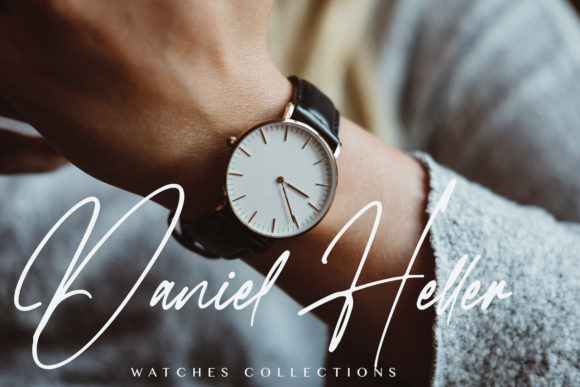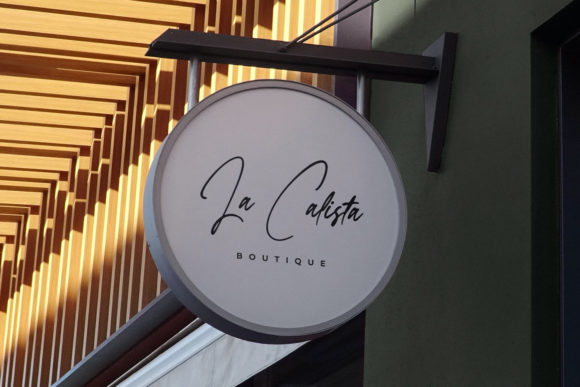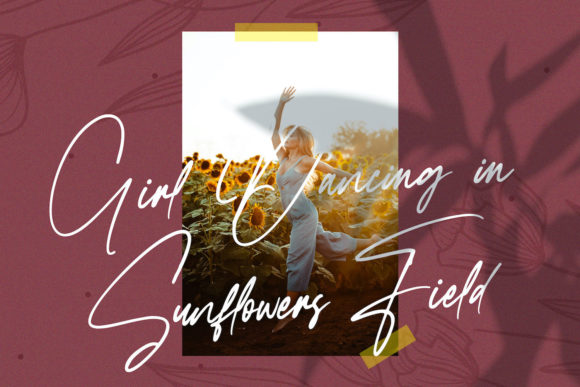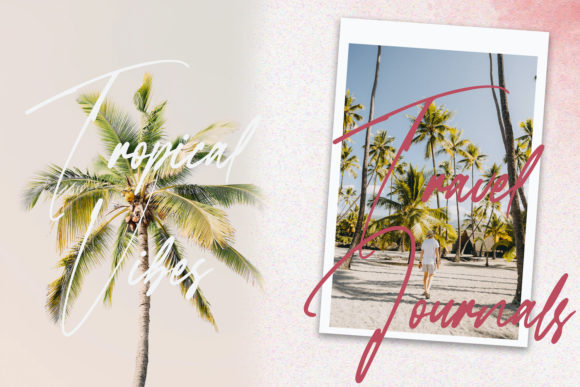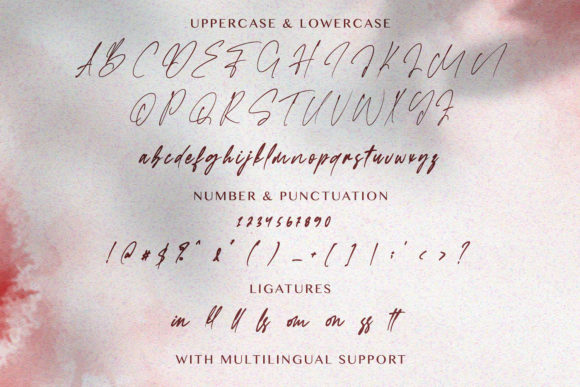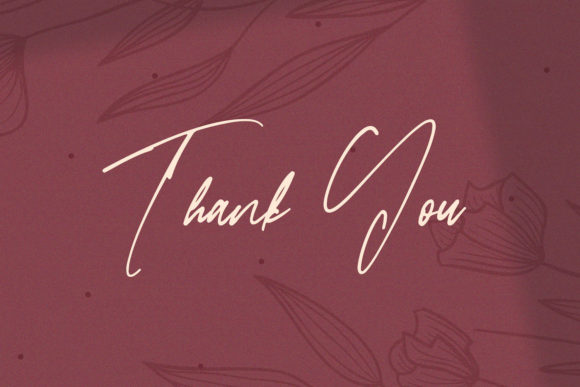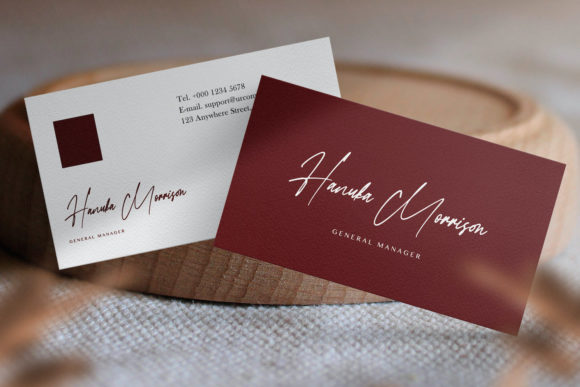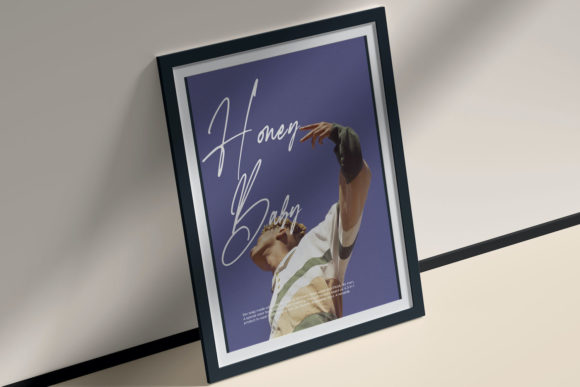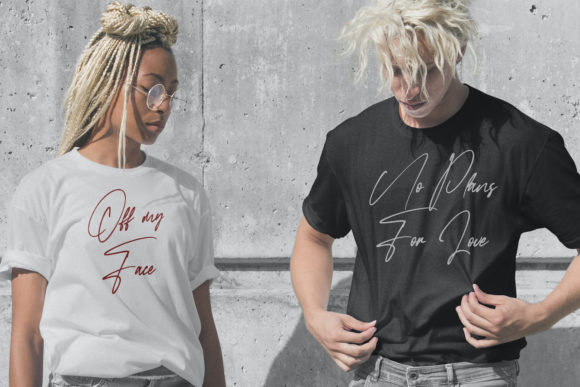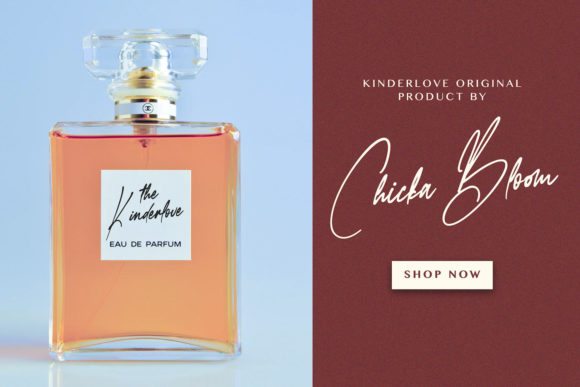
Faloney Script Font
About Faloney Script Font
Faloney Script is a stunning script font that combines a thin, stylish, and cursive aesthetic. With its elegant and flowing letterforms, this font adds a touch of luxury and sophistication to any design project. Whether you’re working on branding, invitations, packaging, or any other creative endeavor, Faloney Script will captivate and impress.
The thin lettering of Faloney Script creates a refined and stylish look. The slender strokes and delicate curves give the font a sense of elegance and grace. This thin and stylish appearance adds a touch of sophistication to your designs, making them stand out with a luxurious spark.
Faloney Script’s cursive style enhances the fluidity and flow of the letterforms. The smooth and graceful curves create a harmonious visual rhythm that adds a sense of beauty and gracefulness to your typography. The script nature of the font adds a personal and human touch, making it perfect for conveying emotions and adding a unique flair to your designs.
The versatility of Faloney Script allows it to shine in various design projects. Its thin and stylish aesthetic complements a wide range of themes and applications, from wedding invitations and logos to product packaging and social media graphics. This flexibility ensures that Faloney Script can adapt to different design needs and create spectacular results.
Fall in love with the incredibly versatile style of Faloney Script. Its elegant and sophisticated appearance will inspire you to create stunning designs that leave a lasting impression. Let the luxurious spark of this font elevate your projects and capture the attention of your audience.
With Faloney Script, you have a powerful tool to bring your creative ideas to life. Its thin lettering, stylish design, and cursive nature make it a font that stands out with its unique charm. Explore the endless possibilities and let Faloney Script become your go-to choice for creating spectacular designs.
In summary, Faloney Script is a thin lettered, stylish, and cursive script font that adds a luxury spark to any design project. Its elegant and flowing letterforms, combined with its versatility, make it a font that can create spectacular designs in various applications. Fall in love with the unique style of Faloney Script and let it inspire your creativity to new heights.